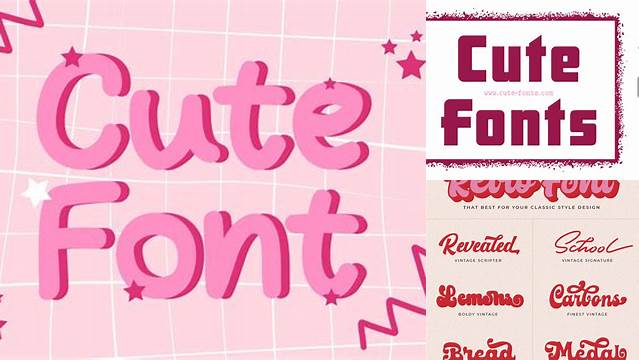
Cute Fonts Generator: Create Adorable Lettering
Hey guys! Ever wanted to add a dash of cuteness to your projects? Well, you've stumbled upon the right place! In this article, we're diving deep into the wonderful world of cute lettering fonts generators. We'll explore what they are, why you should use them, and how you can make the most of these fantastic tools. So, buckle up and let's get those creative juices flowing!
What are Cute Lettering Fonts Generators?
Cute lettering fonts generators are online tools that allow you to create text in a variety of adorable and charming fonts. These generators are perfect for adding a playful and whimsical touch to your designs, whether you're working on social media graphics, invitations, posters, or any other creative project. The beauty of these generators lies in their simplicity and accessibility; you don't need to be a professional designer to create stunning lettering. With just a few clicks, you can transform ordinary text into something extraordinary.
These generators work by providing a range of font styles that evoke feelings of warmth, joy, and playfulness. Think bubbly letters, rounded edges, and whimsical flourishes. These fonts often incorporate elements like hearts, stars, and other cute symbols to enhance their appeal. The best part? Most of these generators are incredibly user-friendly. You simply type in your desired text, choose a font style, and voila! Your cute lettering is ready to go. Many generators also offer customization options, such as color selection and size adjustment, giving you even more control over the final result.
One of the key advantages of using cute lettering fonts generators is the sheer variety of options available. You can find fonts that range from subtly sweet to outright adorable, ensuring there's something to suit every project. Whether you're aiming for a vintage-inspired look or a modern, minimalist feel, you'll find fonts that fit the bill. These generators often include a mix of handwritten styles, calligraphy-inspired fonts, and playful display fonts, giving you a broad palette to work with. This versatility makes them an invaluable tool for anyone looking to add a touch of charm to their designs.
Moreover, cute lettering fonts generators are incredibly time-saving. Creating custom lettering from scratch can be a painstaking process, requiring a deep understanding of typography and design principles. These generators eliminate the need for that expertise, allowing you to produce professional-looking results in a fraction of the time. This is particularly beneficial for small business owners, content creators, and anyone who needs to create eye-catching visuals quickly and efficiently. By streamlining the design process, these generators free up your time to focus on other important aspects of your project.
Why Use a Cute Lettering Fonts Generator?
There are tons of reasons why you might want to use a cute lettering fonts generator. Let's break down some of the key benefits:
Enhancing Visual Appeal
The primary reason to use a cute lettering fonts generator is to enhance the visual appeal of your projects. Cute fonts can instantly make your designs more engaging and eye-catching, drawing the viewer's attention and making a lasting impression. Whether you're creating a birthday card, a social media post, or a website banner, the right font can make all the difference. These fonts add personality and charm, helping your message stand out from the crowd. By incorporating cute lettering, you can create a sense of fun and playfulness that resonates with your audience.
In the world of design, visual appeal is paramount. People are naturally drawn to things that are aesthetically pleasing, and cute fonts are a fantastic way to achieve this. They evoke positive emotions and create a sense of warmth, making your designs more approachable and inviting. This is particularly important in fields like marketing and advertising, where capturing attention and building rapport with your audience is crucial. A well-chosen cute font can be the key to making your message memorable and impactful.
Saving Time and Effort
As we touched on earlier, these generators are huge time-savers. Instead of spending hours trying to create the perfect lettering by hand, you can generate beautiful fonts in seconds. This is a game-changer for anyone with a busy schedule or limited design experience. The efficiency of these tools allows you to focus on the bigger picture, such as the overall message and design concept, rather than getting bogged down in the technicalities of typography. By streamlining the font creation process, you can significantly reduce the time and effort required to complete your projects.
This time-saving aspect is particularly valuable for entrepreneurs and small business owners who often wear multiple hats. They need to create marketing materials, social media content, and other visual assets quickly and efficiently. Cute lettering fonts generators empower them to do just that, providing a cost-effective and user-friendly solution for their design needs. By freeing up their time, these tools allow them to focus on other critical aspects of their business, such as customer service, product development, and strategic planning.
Accessibility and Ease of Use
Most cute lettering fonts generators are designed with the user in mind. They're incredibly easy to use, even if you have no prior design experience. The interfaces are typically intuitive and straightforward, allowing you to quickly find the fonts you need and customize them to your liking. This accessibility is a major advantage, as it democratizes design and empowers anyone to create beautiful lettering. You don't need expensive software or specialized training to achieve professional-looking results.
So there you have it! Cute lettering fonts generators are amazing tools for adding charm and personality to your projects. They're easy to use, time-saving, and offer a wide range of options. Whether you're a professional designer or just someone who wants to make their creations a little more adorable, these generators are definitely worth checking out. Go ahead and unleash your creativity – those cute letters are waiting!